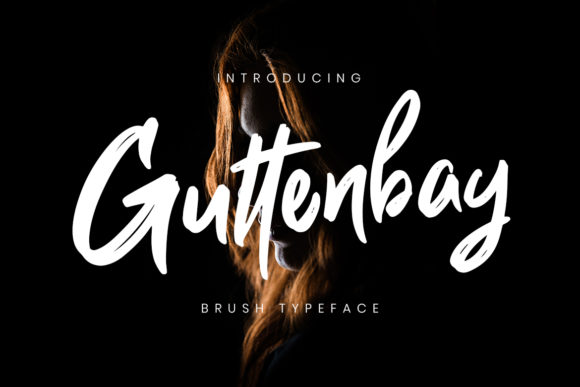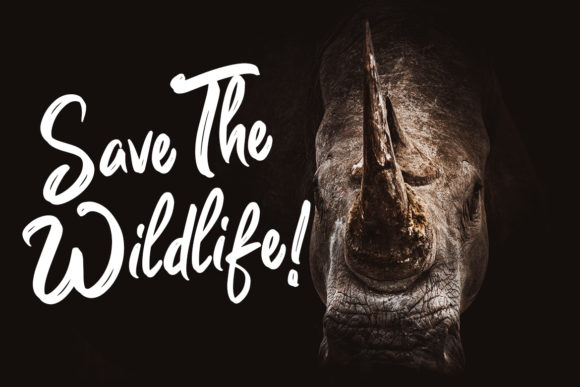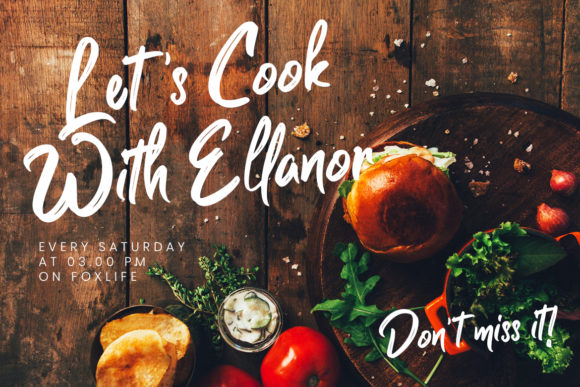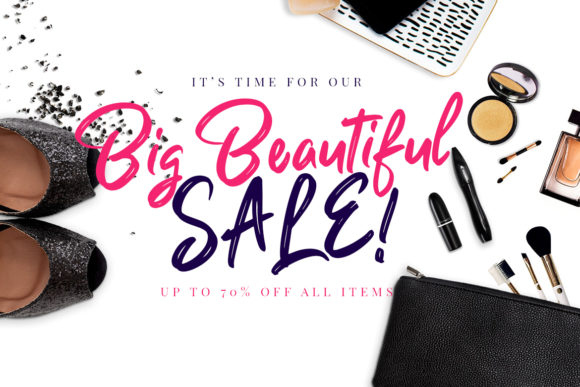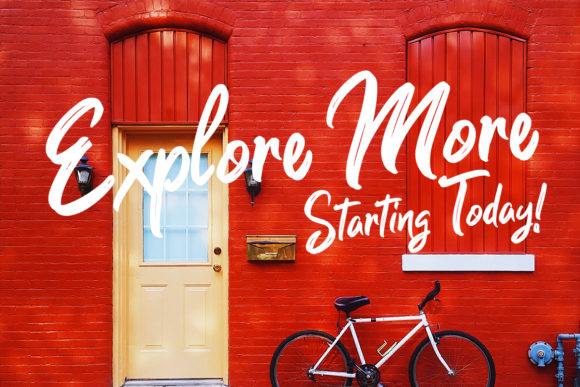
HomeScript FontsGuttenbay Font Script Fonts Guttenbay Font FacebookXPinterestWhatsApp Guttenbay Font Poster 2 Guttenbay Font Poster 3 Guttenbay Font Poster 4 Guttenbay Font Poster 5 About Guttenbay Font Guttenbay is a ultra smooth brush script, featuring a bold, natural looking style. DOWNLOAD ON CREATIVE FABRICAThis font is sold and delivered by Creative Fabrica. Font Canyon may earn a commission if you buy through this link. People also explored Love Heart Outlander Font Mandala Rainbow Font Snowman Version Two Font Minimalist Font Filosofy Font Farmhouse Font Marhaban Arabic Font Penelope 299 0 TagsGuttenbay Font Previous articleHamster Script FontNext articleRhoselinna Font LEAVE A REPLY Cancel reply Comment: Please enter your comment! Name:* Please enter your name here Email:* You have entered an incorrect email address! Please enter your email address here Website: Save my name, email, and website in this browser for the next time I comment. Personal Use Free Thruster Personal Use Free Read more about this font Deling Personal Use Free Read more about this font Septhine Personal Use Free Read more about this font Bruttney Personal Use Free Read more about this font BLOG Best Fonts for T-Shirt Design – Top 2025 Picks In 2025, t-shirt design has become more than just fashion—it's a form of self-expression. Whether you're... 5 Fonts That Will Dominate Design Trends in 2026 Elegant Wedding Invitation Fonts – Handwritten & Script Fonts How to Install and Use Fonts on Windows, macOS, and Web Projects